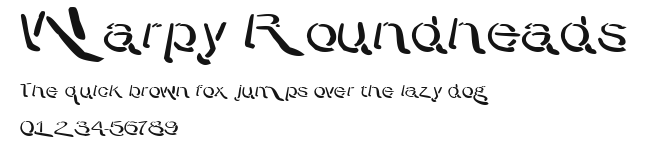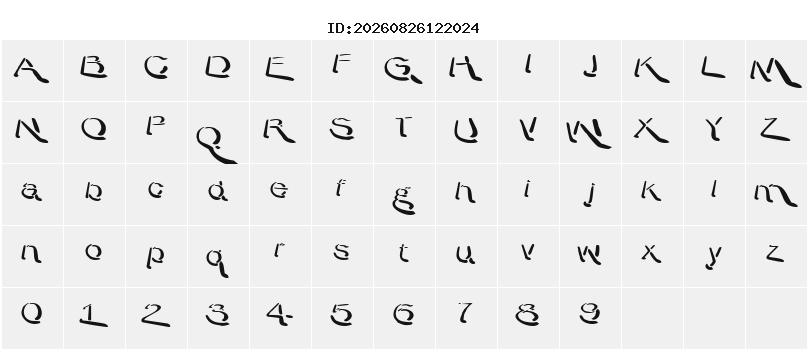
Warpy Roundheads Preview
• Font Name: Warpy Roundheads
• Full Font Name: Warpy Roundheads
About Warpy Roundheads.ttf
Warpy Roundheads.ttf is a modern, elegant sans-serif font designed for ultimate readability and visual harmony. Perfect for branding, headlines, web design, and print materials.